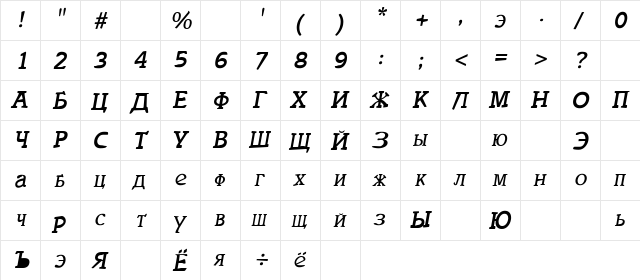
ItaliaCyrillicItalic Italic
Design Context for ItaliaCyrillicItalic Typeface
ItaliaCyrillicItalic takes a measured approach to typography — its balanced proportions and neutral character make it a reliable workhorse for both digital and print work. The slanted form adds forward momentum and visual energy.
Pro Tip: Try ItaliaCyrillicItalic for annotation and caption copy alongside an upright companion — the contrast in angle creates a dynamic but ordered typographic system.